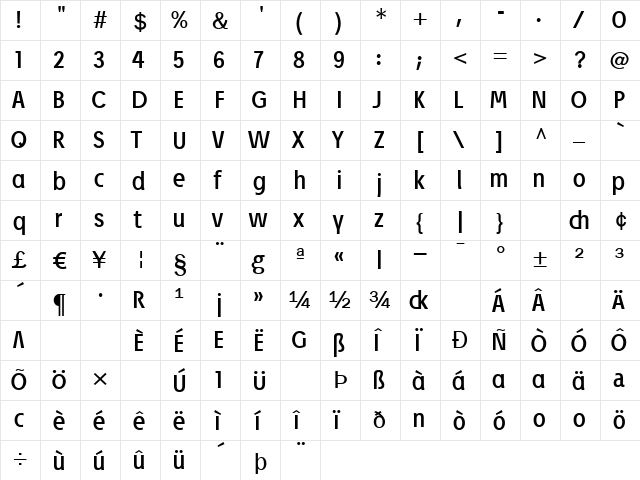
Josef Normal
Design Context for Josef Typeface
Josef is a composed and adaptable typeface that performs quietly and consistently across a wide range of design contexts.